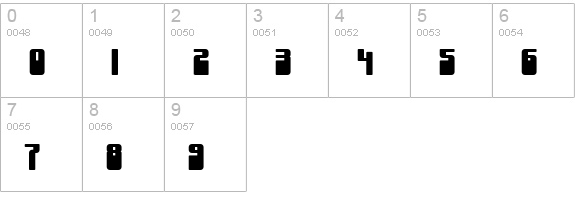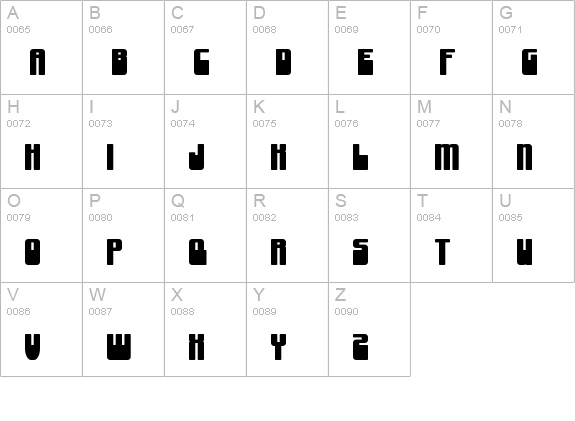
Groove Machine Upright Bold is a strong, high-contrast variant in the Groove typeface family \xE2\x80\x94 well suited to headlines, attention-grabbing titles, and strong calls-to-action.
Groove Machine Upright Bold font is a modern and stylish typeface that exudes confidence and creativity. Its bold and upright design makes a strong statement, perfect for headlines, titles, and branding projects. The sharp edges and clean lines give it a sleek and professional look, while the unique personality of the font adds a touch of individuality to any design. What's even better is that Groove Machine Upright Bold font is available for free download at FontsMarket.com. This means you can access this versatile and eye-catching font without any cost, making it a valuable addition to your font collection. Whether you're working on a poster, logo, or website design, this font will help you stand out and make a lasting impression. Download Groove Machine Upright Bold font today and elevate your design projects with its bold and dynamic style.